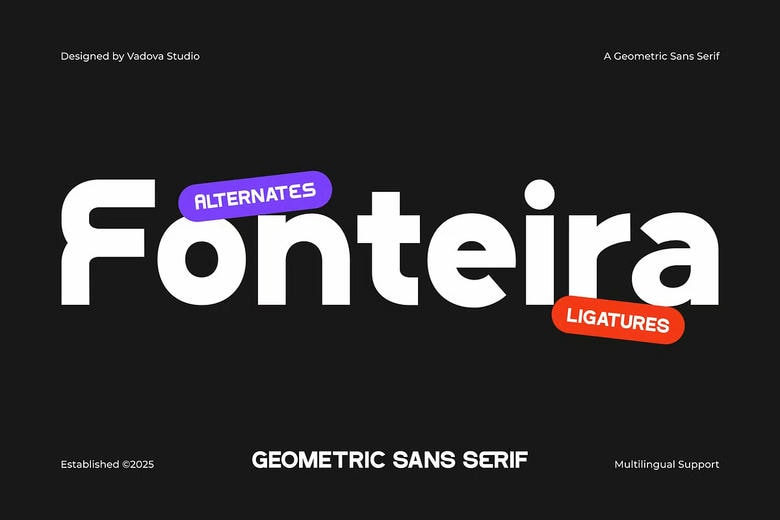
Fonteira Font
Fonteira is a modern geometric sans serif font that is bold and used in high impact visual communication. This typeface is very basic and has clean, minimal lines and strong structure which makes your creative work to be clear and sharp. It has both uppercase and lowercase, numbers, punctuation, multilingual, and an extensive repertoire of stylistic alternatives and ligatures to increase what you may design.
Fonteira is designed to appeal to creative professionals who desire to make a visual impact. The boldness and geometric style position it perfectly to be used by startups, tech brands, editorial headlines, and digital campaigns. Fonteira provides form and contemporary to any design whether you are designing a web interface, mobile application, poster or a logogram.
Fonteira Geometric Sans Serif Font